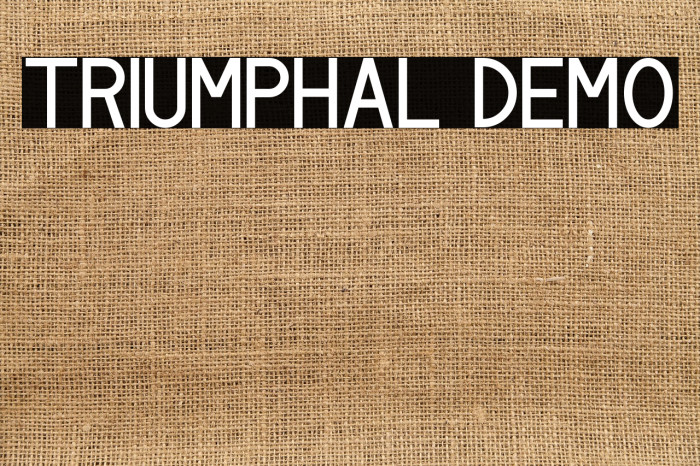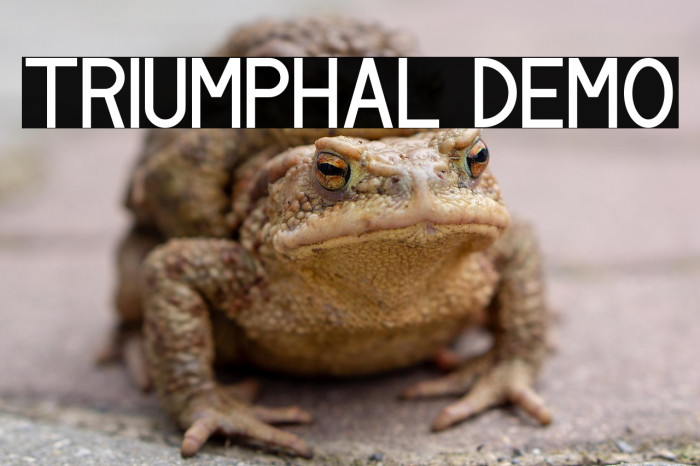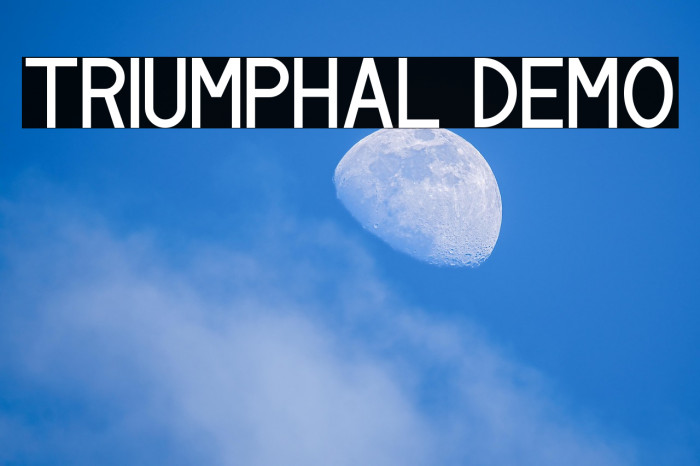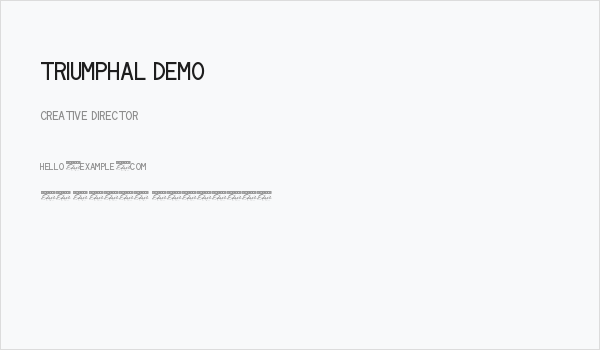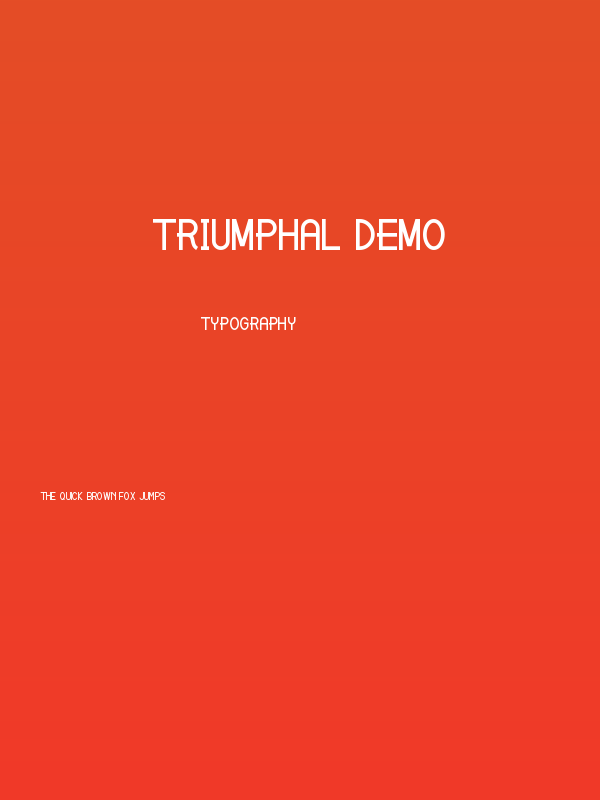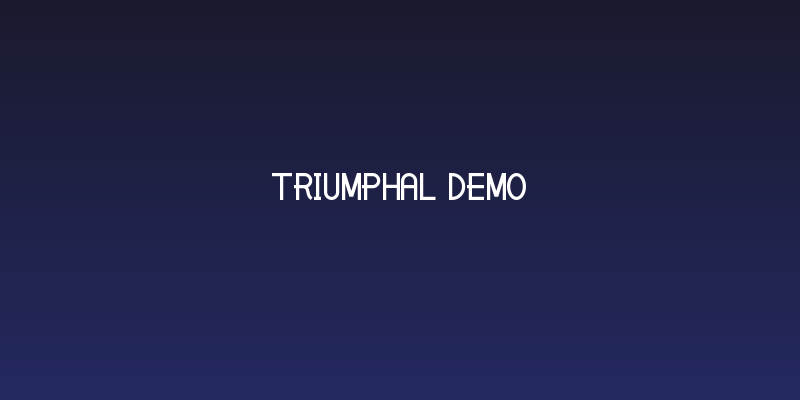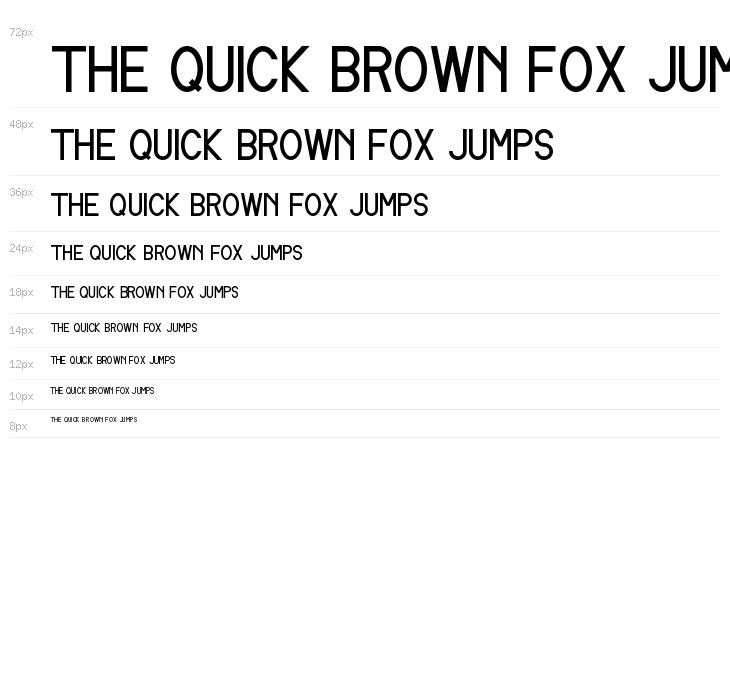
Triumphal Demo Font
Triumphal Demo Description
This font features a bold, geometric sans-serif style with clean lines and a modern aesthetic. The uppercase letters are uniformly structured, providing a sense of stability and strength. The lowercase letters maintain the same geometric precision, ensuring readability and a cohesive look. The font's design is straightforward, making it versatile for various applications. Its boldness and clarity make it suitable for impactful headlines and branding projects. The overall style is contemporary, with a focus on simplicity and functionality.